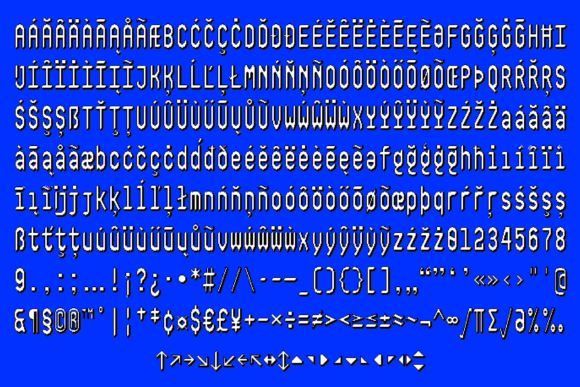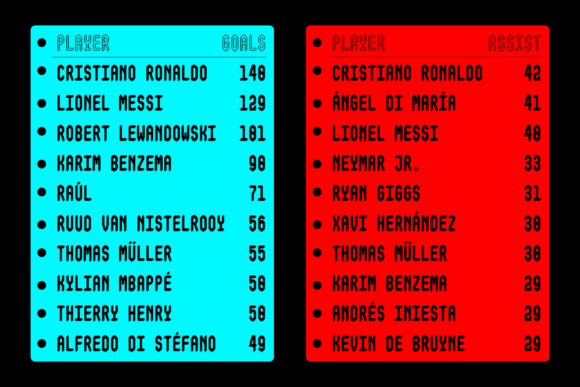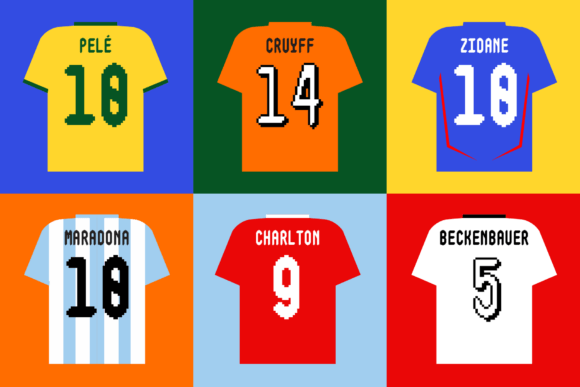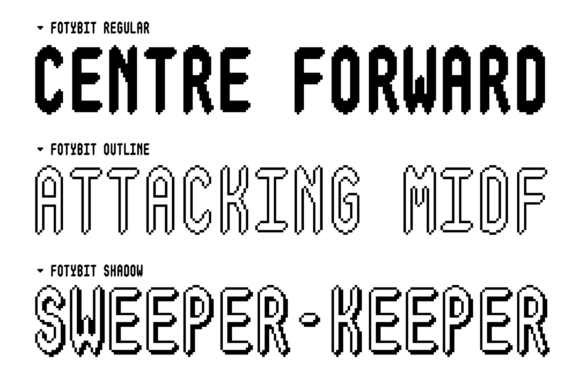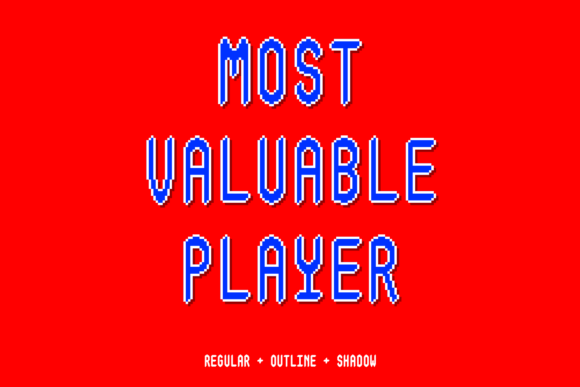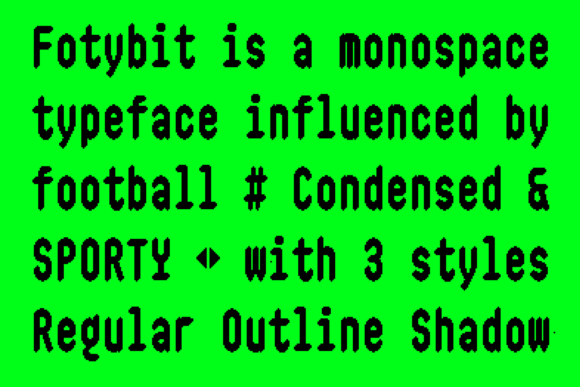
Finding the Perfect Score: Unleashing the Power of the Fotybit Family Font
As a designer, have you ever found yourself stuck in a creative rut, searching for the perfect font to give your project that extra oomph? For me, it’s often when I’m working on a sports-themed project that I get that spark of inspiration – the thrill of the game, the rush of adrenaline, and the desire to create something truly unforgettable. It’s in these moments that I turn to the Fotybit Family Font, a condensed monospace pixel font that embodies the energy and dynamism of football.
With its clean lines, grid-based structure, and pixelated style, Fotybit is the perfect choice for digital scoreboards, game designs, sports branding, and creative headlines. Whether you’re a seasoned designer or just starting out, this versatile font is sure to become a valuable addition to your toolkit.
Fotybit Family Font Key Features
- Unique Characteristics: Features a unique blend of modern and vintage design elements, with intricate details and subtle texture effects
Fotybit Family Font Review
I’ve had the chance to play around with the Fotybit Family Font, and here’s my honest review.
- Unique Character: The Fotybit Family Font has a distinctive and playful character that’s perfect for creating eye-catching designs.
- Good for Titles: The font’s bold and elegant appearance makes it well-suited for titles, headings, and other prominent text.
- High Legibility: Despite its unique appearance, the font is surprisingly easy to read, even at smaller font sizes.
- Not Ideal for Body Text: While the font is great for titles, it may not be the best choice for body text, as it can be a bit too playful and distracting.
- Limited Font Weights: The font family is limited to a few weights, which may not provide enough options for designers who need to match specific design requirements.
- Not Suitable for Formal Designs: The font’s playful character may not be suitable for formal or professional designs, where a more serious tone is required.
The Fotybit Family Font is a great addition to any designer’s toolkit, especially for those who want to add a bit of whimsy and personality to their designs. However, it’s not a one-size-fits-all solution, and designers should use it judiciously to avoid overwhelming their audience.
Fotybit Family Font Practical Application Guide
Getting the Most Out of Fotybit Family Font
To get the most out of Fotybit Family Font, use it for:
- Brand identity and logos
- Print materials, such as business cards and brochures
- Displaying headings and titles
Fotybit Family Font is commonly used for:
- Modern and minimalist designs
- Corporate and business communications
- Editorial and publishing projects
Alternatives to Fotybit Family Font
Playfair Display is a luxurious and elegant script font, perfect for adding a touch of sophistication to your designs. It features beautiful connections and flourishes, making it ideal for use in invitations, wedding designs, and high-end branding.
Compared to Fotybit Family Font, Playfair Display has a more refined and luxurious feel, with intricate details and a more ornate design. It is better suited for formal and high-end designs, while Fotybit Family Font has a more playful and casual feel.
Great Vibes is a modern and stylish script font, perfect for creating a friendly and approachable atmosphere in your designs. It features a relaxed and casual feel, making it ideal for use in social media, blogs, and advertising.